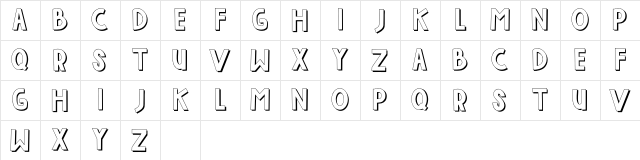
INDAH PAPUAKU Regular Font Preview
INDAH PAPUAKU Regular
INDAH PAPUAKU Regular Font Details
Design Context for INDAH PAPUAKU Typeface
INDAH PAPUAKU is a composed and adaptable typeface that performs quietly and consistently across a wide range of design contexts.